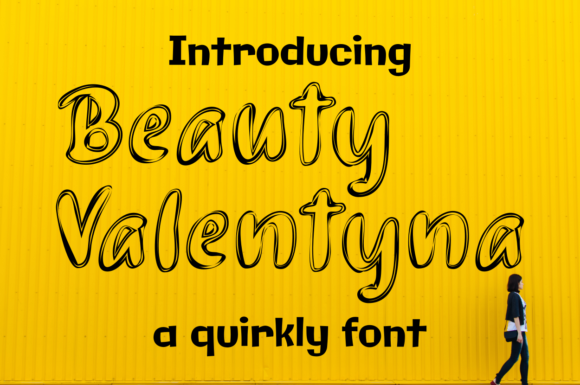
Welcome to the realm of Beauty Valentyna, the display font that sparks joy and captivates audiences with its playful, bold, and trendy demeanor. Embark on a journey of laughter and creativity as this font transforms your designs into captivating works of art.
Picture this: your funny videos, brimming with humor and wit, adorned with the vibrant strokes of Beauty Valentyna. Each letter dances across the screen, carrying your message with an infectious energy that draws viewers into your comedic universe. The font's unique outlines lend an air of lightheartedness, inviting your audience to join you on a laughter-filled adventure.
Beyond the realm of humor, Beauty Valentyna's versatility shines through in a myriad of casual and informal settings. Whether you're crafting eye-catching social media posts, designing whimsical invitations, or creating playful logos, this font adds a touch of fun and personality that leaves a lasting impression.
Let your imagination run wild as you unleash the power of Beauty Valentyna. Its bold presence commands attention, ensuring that your message cuts through the noise and reaches your target audience. With its playful charm and undeniable charisma, this font will transform your designs into unforgettable experiences that leave a smile on every face.